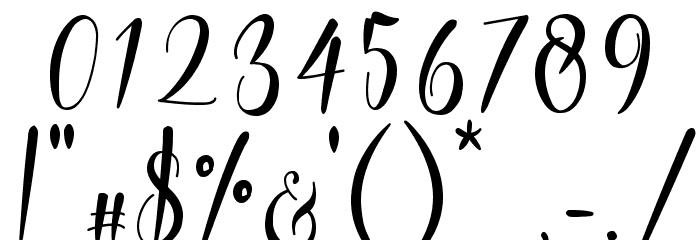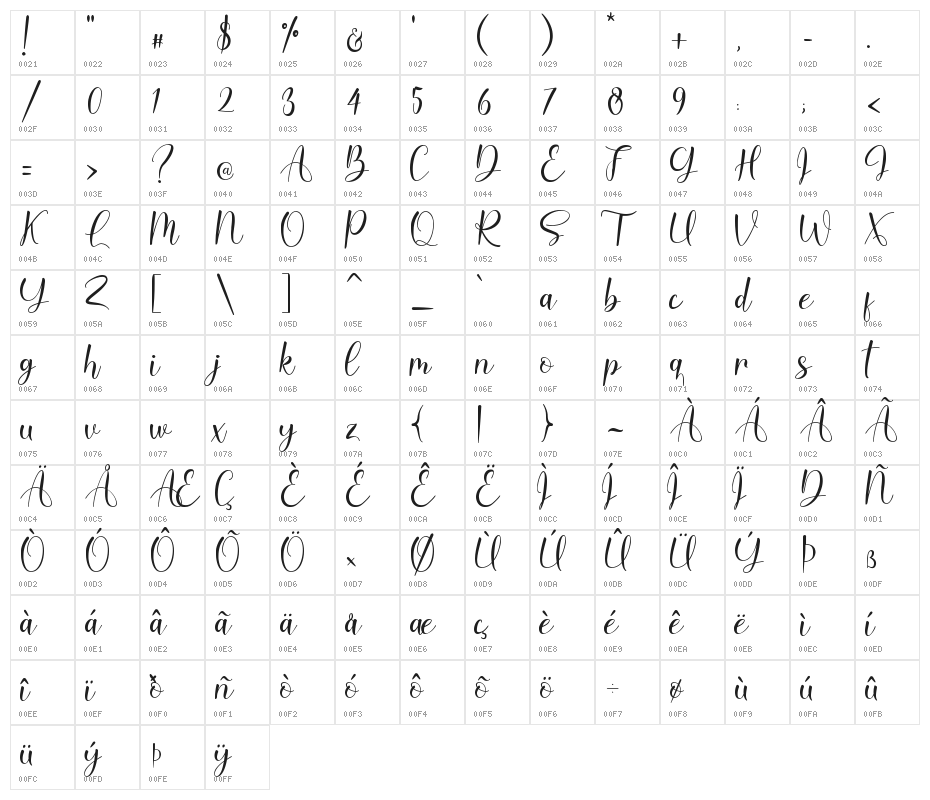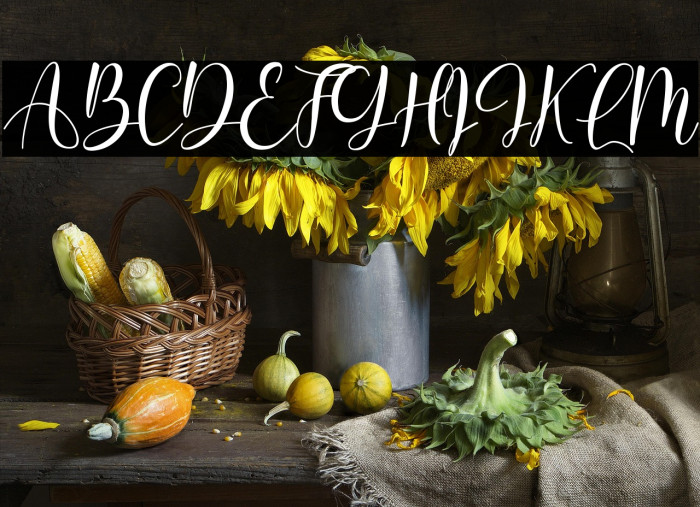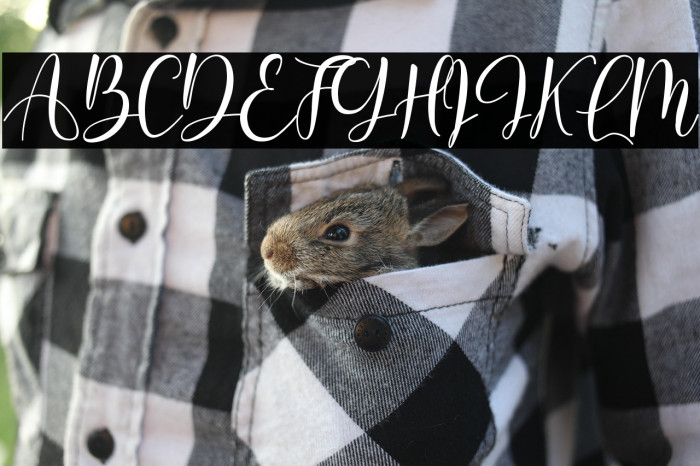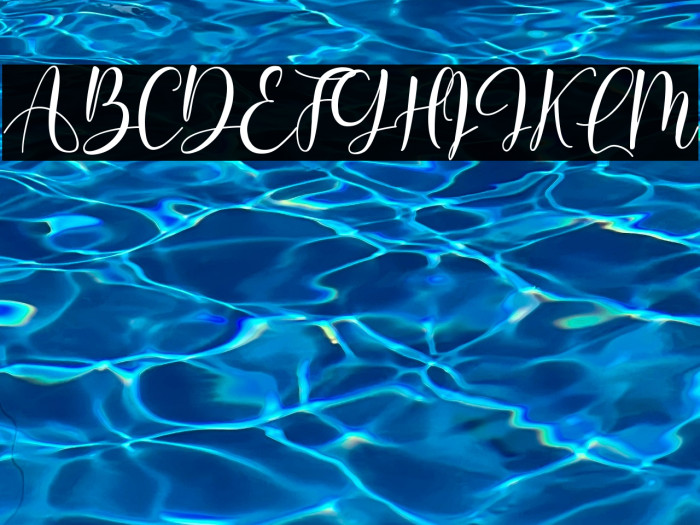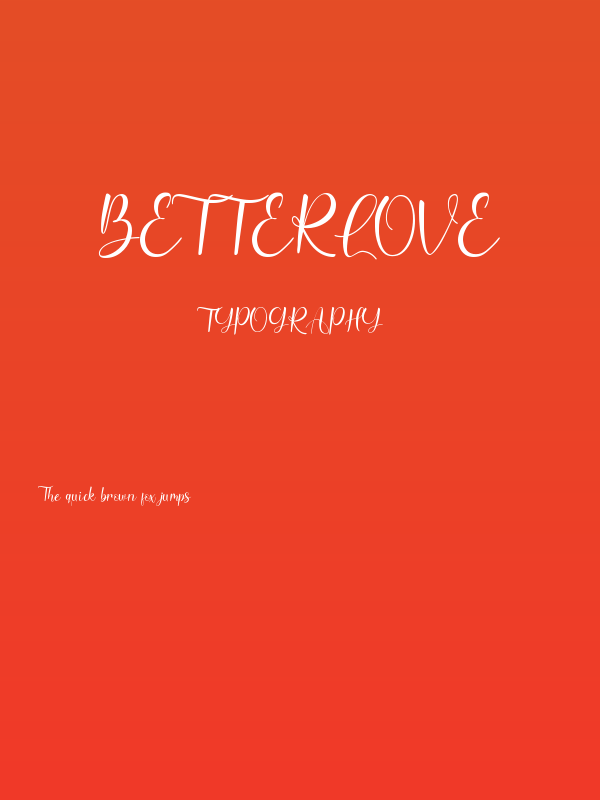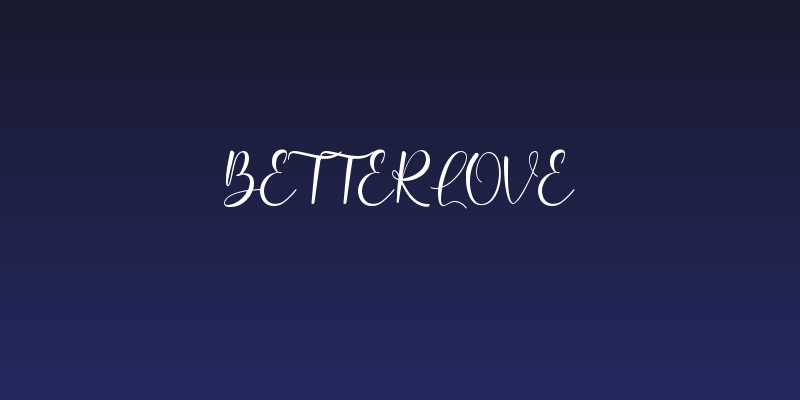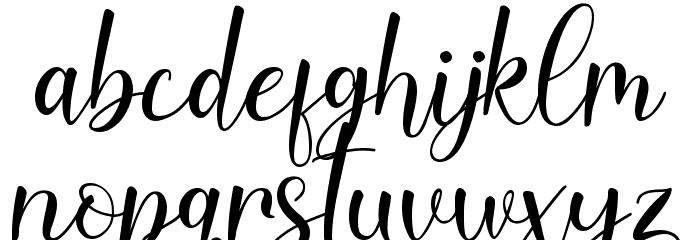
Betterlove Font
Betterlove Description
This font features an elegant and flowing script style, characterized by its smooth, cursive letters that convey a sense of sophistication and grace. The uppercase letters are tall and slender, with delicate loops and swashes that add a touch of flair. The lowercase letters maintain a consistent flow, with rounded forms and subtle connections between characters. The numerals are stylish and complement the overall script design, while the special characters retain the same fluidity and elegance. This font is ideal for projects that require a personal and artistic touch, such as invitations, greeting cards, and branding materials.
| Overall Style | Elegant, Artistic |
| Proposed Projects | Ideal for wedding invitations, greeting cards, personal branding, and artistic projects. |